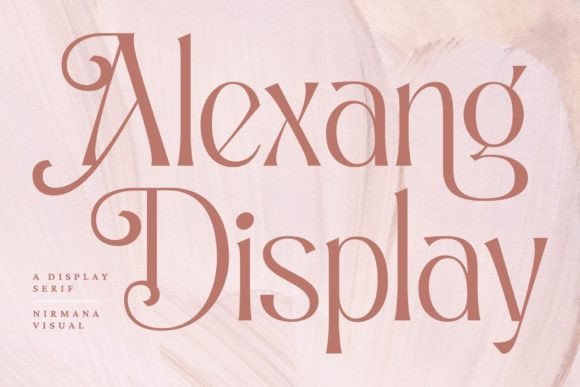
Unleash the Power of Professionalism with Alexang Display: The Ultimate Serif Font for Business Plans
Journey into the realm of sophistication and elegance with Alexang Display, the captivating serif font that exudes a timeless charm. Designed with precision and artistry, this font family embodies the essence of professionalism, making it the perfect choice for crafting business plans that leave a lasting impression. Its meticulously crafted characters boast a beautiful typographic harmony that elevates your words into a symphony of visual appeal.
Indulge in the versatility of Alexang Display. Its carefully balanced strokes and graceful curves seamlessly adapt to a diverse range of design projects. From logos and branding that command attention to social media posts that captivate audiences, Alexang Display transforms your designs into masterpieces. Let your advertisements and product designs radiate with an air of sophistication that sets you apart from the ordinary.
Alexang Display is the brainchild of the visionary font designer, Sigit Dwipa, who poured his passion and expertise into every letterform. This font is not merely a collection of characters; it's a statement of style, a reflection of your dedication to excellence. With Alexang Display as your font of choice, your business plan becomes an embodiment of your professionalism, conveying a message of confidence and success.
Step into the future of font excellence with Alexang Display. Experience the transformative power of typography as your business plan takes on a new life of elegance and allure. Embrace the opportunity to create a document that goes beyond mere words; a document that speaks volumes about your dedication, your vision, and your unwavering commitment to excellence.